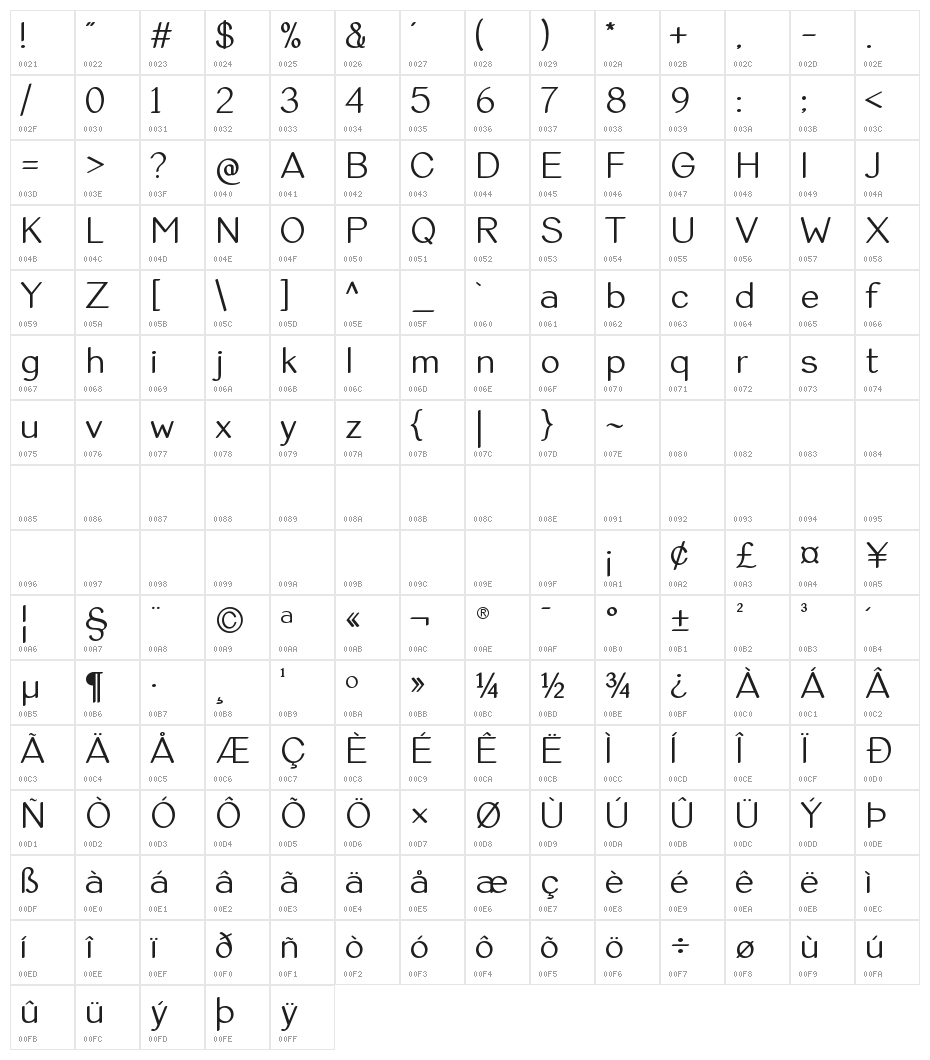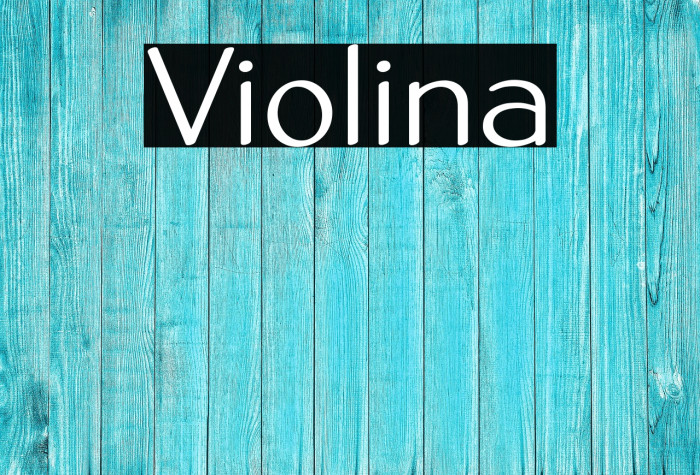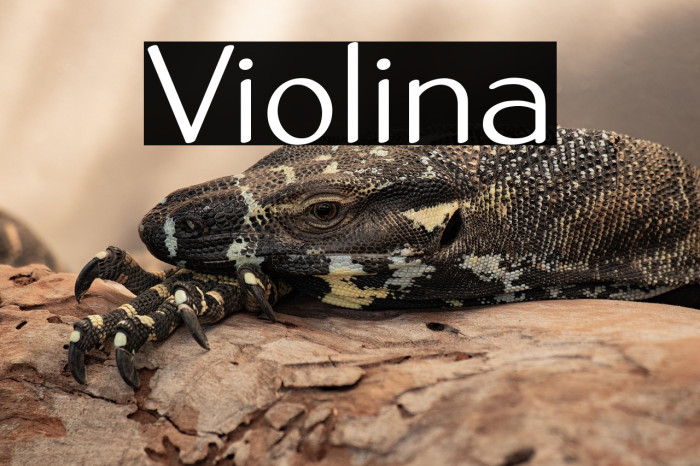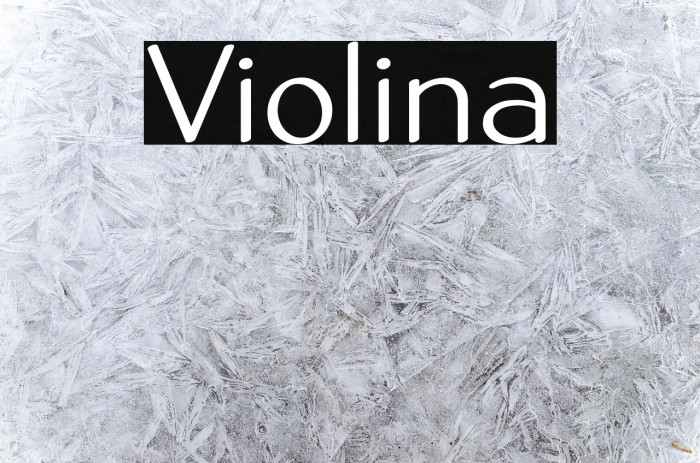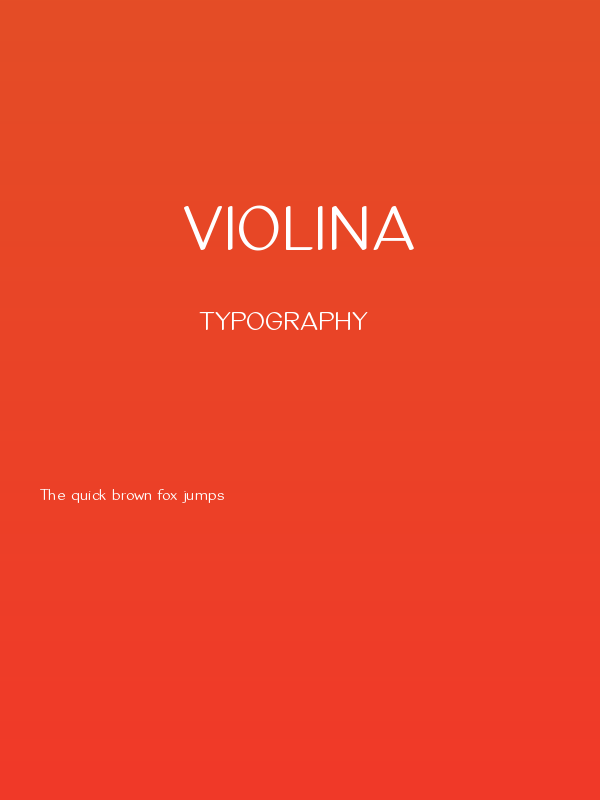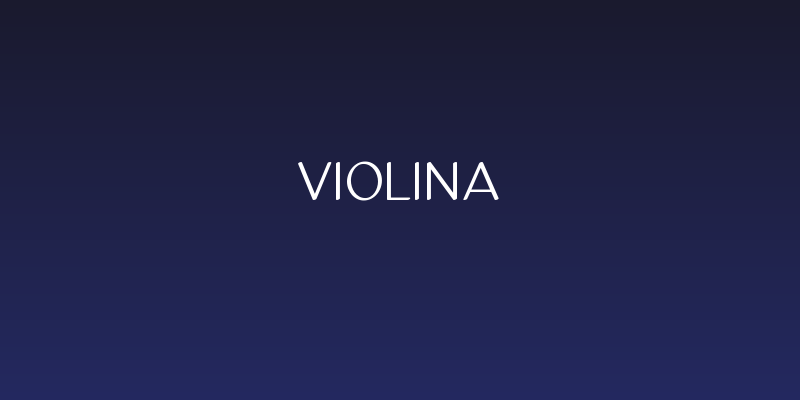
Violina Font
Violina Description
This font features a clean and modern sans-serif design with uniform stroke widths, providing a sleek and contemporary appearance. The characters are well-proportioned, with a slightly rounded aesthetic that adds a touch of softness to the overall look. The uppercase and lowercase letters are balanced, ensuring readability and versatility across different applications. The numerals are clear and distinct, making them suitable for both digital and print media. Special characters are included, maintaining the font's cohesive style. Its simplicity and elegance make it ideal for a wide range of design projects.